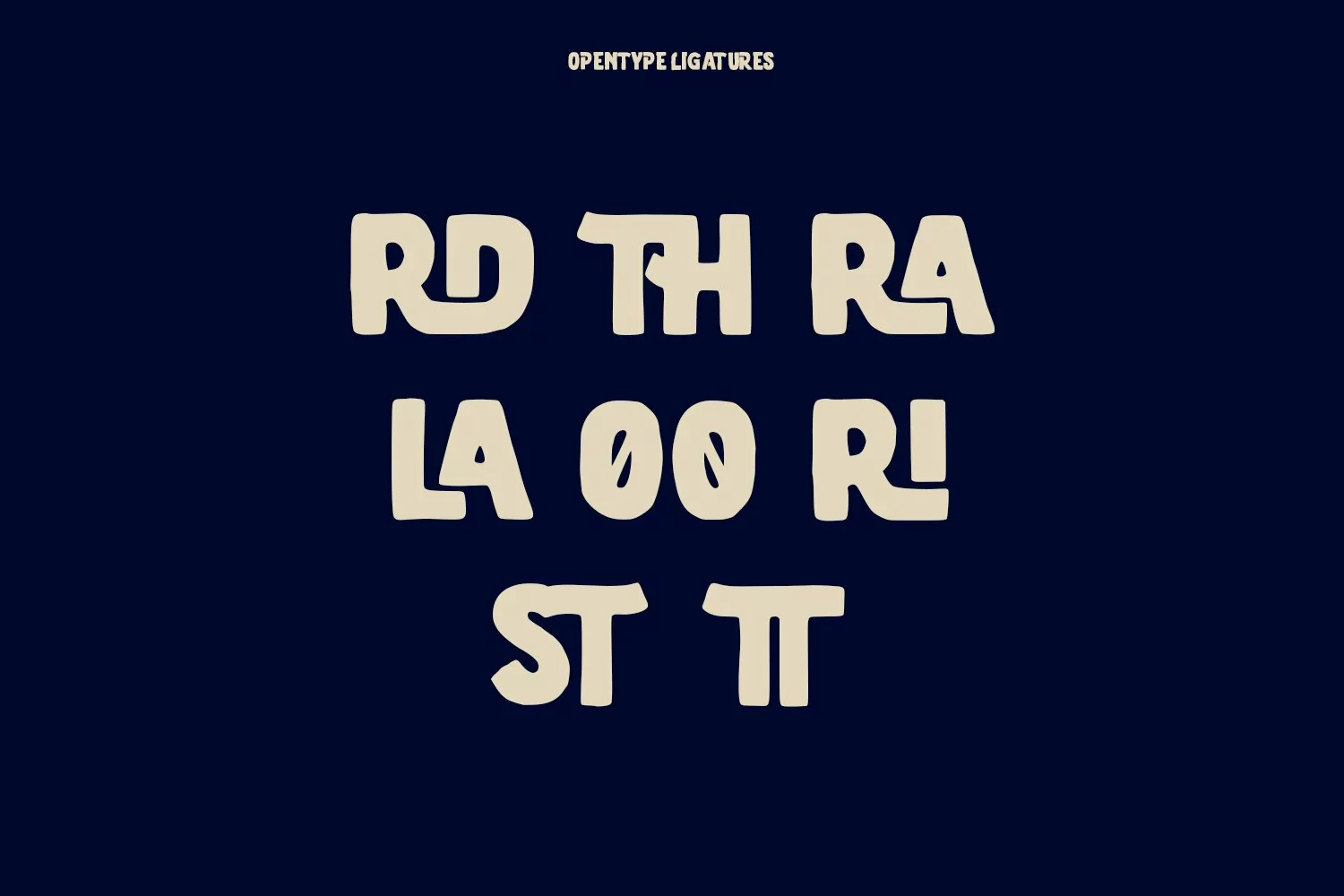
Bravhela is an unique western handwritten display script font. With bold consist stroke, fun character with a bit of ligatures and alternates. To give you an extra creative work. Bravhela font support multilingual more than 100+ language. This font is good for logo design, Social media, Movie Titles, Books Titles, a short text even a long text letter and good for your secondary text font with sans or serif. Make a stunning work with Bravhela font.
Bravhela